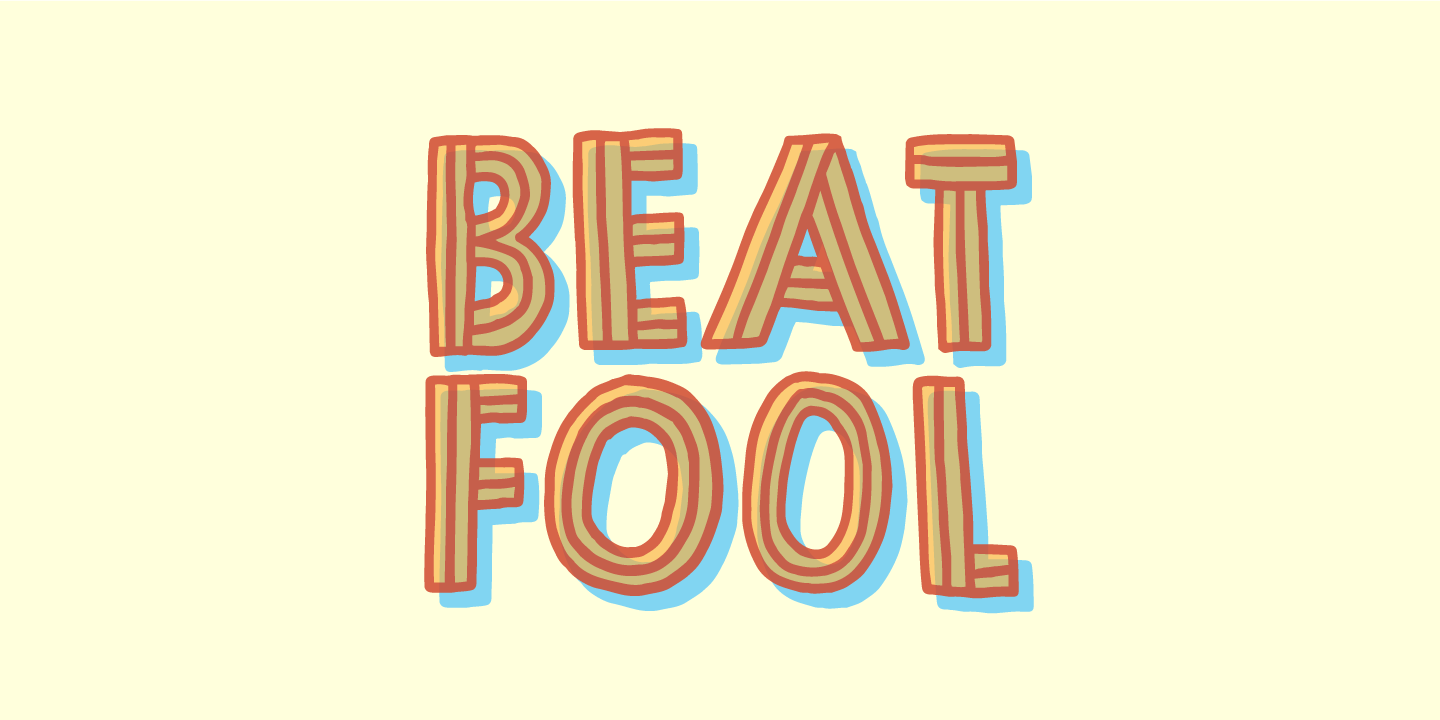
Beat Fool Font excels in rhythmic design applications including music festival branding, hip-hop artist logos, DJ event posters, music producer identity, beat-making software interfaces, underground club graphics, rhythm game design, and energetic advertising campaigns that require typography with musical character and beat-driven energy.
What makes Beat Fool Font exciting is its dynamic ability to capture the pulsating rhythm and playful energy of music culture through rhythmically crafted letterforms that embody the syncopated beats and creative chaos of musical expression. This vibrant typeface features beat-inspired characteristics with musical curves and rhythm-driven proportions that instantly communicate energy, creativity, and musical passion. The font's rhythmic personality and musical appeal make it perfect for brands seeking to establish connection with music enthusiasts and communicate values of creativity, rhythm, and musical authenticity to audiences who live for the beat.
Beat Fool Font family includes various weights and rhythmic variations designed for comprehensive music communication. The family typically includes light, regular, bold, and extra-bold weights, complemented by beat alternates, musical ligatures, and extended character sets with music symbols that enhance its rhythmic aesthetic and provide maximum musical impact.
Music industry designers consistently choose Beat Fool Font Free Download for projects requiring typography that embodies musical rhythm and creative energy. This dynamic typeface delivers exceptional musical appeal across entertainment applications, from digital music platforms to physical festival materials, ensuring consistent brand messaging with unmistakable rhythmic authority and musical charm. The font's rhythmically crafted letterforms maintain excellent readability while delivering the energetic presence that music brands demand. Musical creative agencies worldwide rely on this rhythmic typeface to communicate brand values of creativity, musical passion, and beat excellence. Drop the beat with Beat Fool Font and create memorable visual communications that resonate with audiences who appreciate musical rhythm, creative expression, and the infectious energy of beats that move hearts and souls.